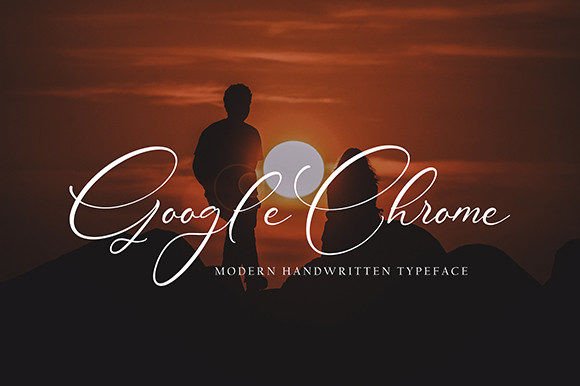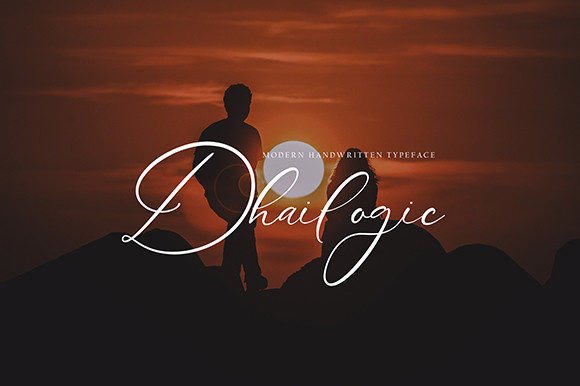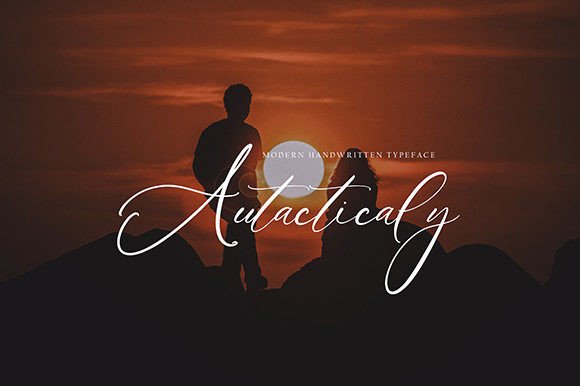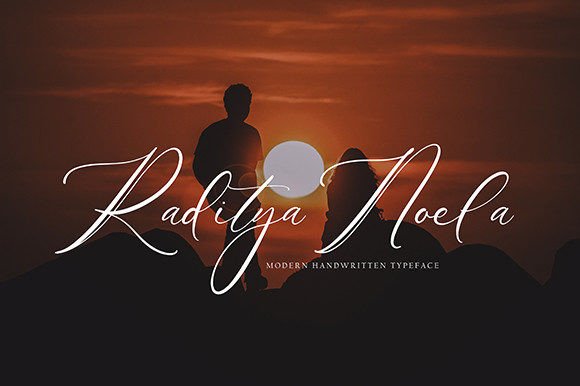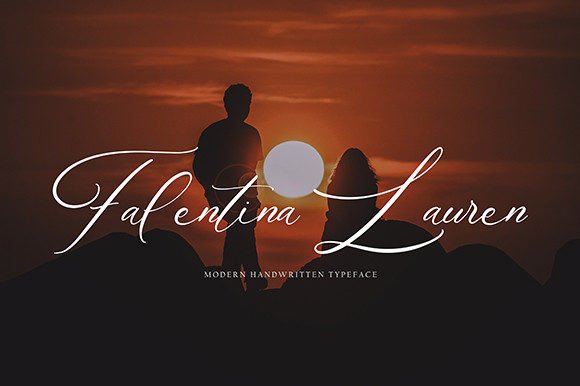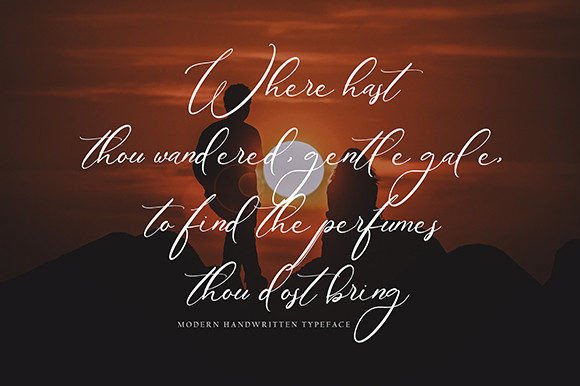
| 👤 Author | Pineungtype & Missinklab |
Enter the Berpo Portyn Font, a stunning and modern handwritten font that’s perfect for quotes, logos, blog headers, posters, and more. This cool and stylish font is a valuable addition to any designer’s library, offering endless possibilities for creative expression. Whether you’re working on a personal project or a client’s branding, the Berpo Portyn Font is sure to impress.
- Font Family: Berpo Portyn Font is a unique, hand-drawn script font designed for various creative applications.
- Character Set: The font includes a wide range of characters, including uppercase and lowercase letters, numbers, and punctuation marks.
- Unique Characteristics: The Berpo Portyn Font features a distinctive, whimsical design with irregular letterforms and flourishes, adding a touch of personality to any text.
Designer Review: Berpo Portyn Font
When I first laid eyes on Berpo Portyn, I was immediately drawn to its unique blend of elegance and playfulness. The font’s ✨ bold yet refined lines make it perfect for titles and headings, while its subtle nuances bring a sense of sophistication to body text.
The font’s versatility is one of its greatest strengths. It works well in both digital and print applications, and its ✨ wide range of weights and styles make it easy to customize to suit any design need.
However, there are a few areas where Berpo Portyn falls short. The font’s ⚠️ limited language support may be a concern for designers working on international projects, and its ⚠️ lack of OpenType features means it may not be suitable for complex typography projects.
Overall, I would give Berpo Portyn a solid 4 out of 5 stars. While it may not be perfect, its unique charm and versatility make it a great addition to any designer’s toolkit. With a bit of tweaking and customization, Berpo Portyn can add a touch of sophistication and whimsy to even the most mundane designs.
Pros:
- ✨ Bold and refined lines
- ✨ Wide range of weights and styles
- ✨ Versatile and adaptable
Cons:
- ⚠️ Limited language support
- ⚠️ Lack of OpenType features
Berpo Portyn Font is ideal for:
- Graphic design projects
- Typography-based art
- Print and digital media
Berpo Portyn includes a comprehensive character set, covering Latin, Cyrillic, and Greek scripts. This includes a wide range of punctuation, symbols, and special characters, making it suitable for use in a variety of languages and applications.